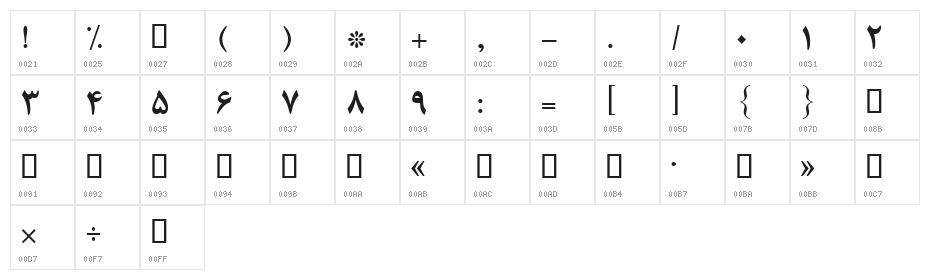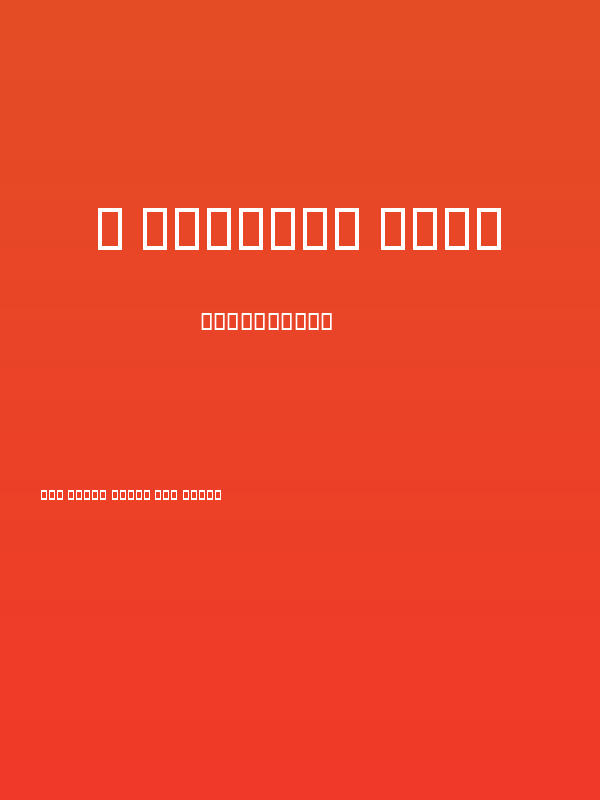
B Nazanin Bold Font
B Nazanin Bold Description
This font features a bold and elegant style, characterized by its strong, thick strokes and smooth curves. It presents a modern yet classic appearance, suitable for a variety of design needs. The characters are well-defined with a consistent weight, offering a sense of stability and readability. The numerals are distinct and clear, complementing the overall aesthetic. Special characters are designed with attention to detail, enhancing the font's versatility. This font is ideal for projects that require a touch of sophistication and clarity.
| Proposed Projects | Ideal for branding, headlines, posters, and any project that requires a bold and sophisticated typeface. |